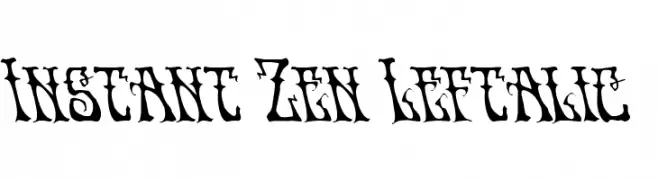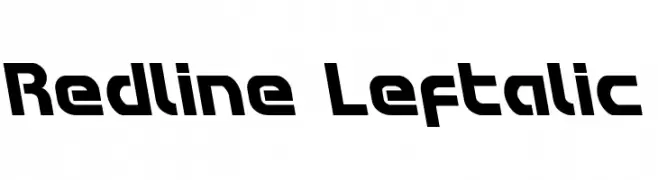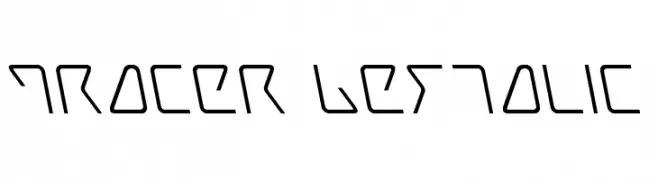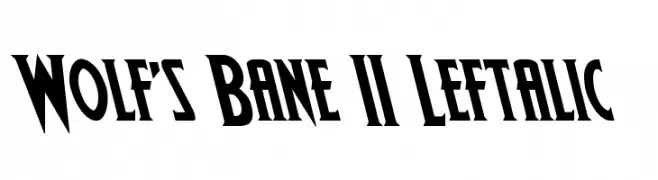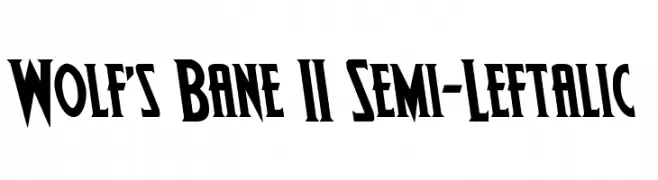
A decorative and artistic font with bold, intricate designs and whimsical flair.
A bold, angular font with a dynamic, italicized style.
A bold, left-leaning font with sharp, angular edges and a dynamic style.
A bold, left-slanted font with angular edges and a dynamic style.
A bold, left-slanted font with a geometric and dynamic style.
A futuristic, geometric font with sharp angles and a tech-inspired design.
A futuristic, angular font with a consistent line thickness and dynamic slant.
A futuristic, geometric font with sharp angles and a stencil-like design.
A bold, angular, and futuristic font with a dynamic slant.
A bold, futuristic font with a leftward slant and geometric design.